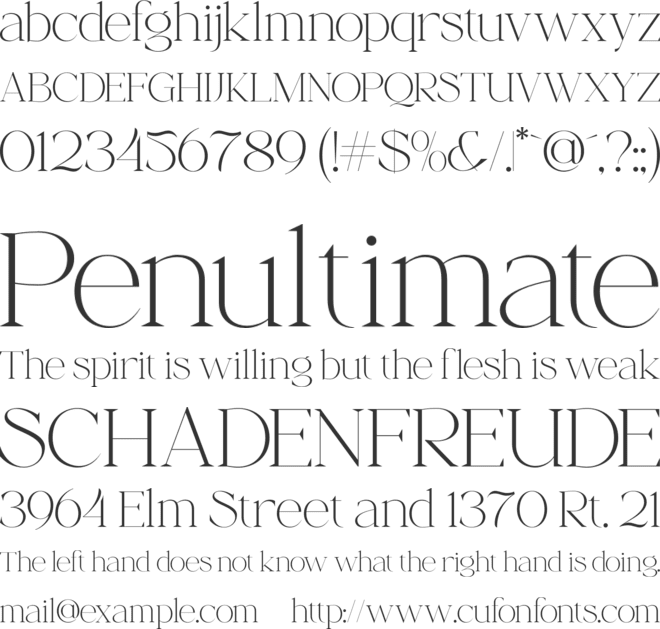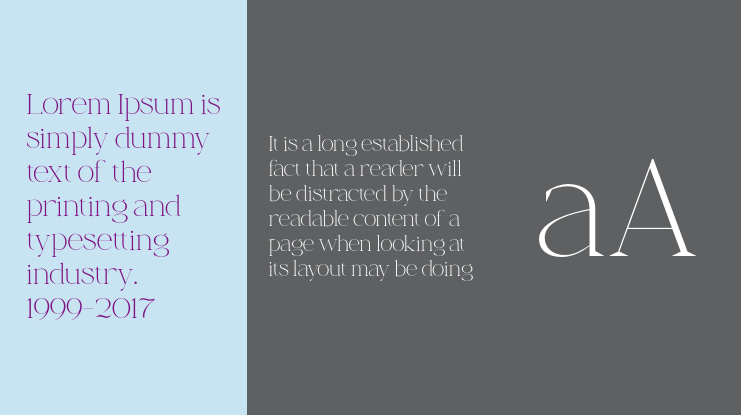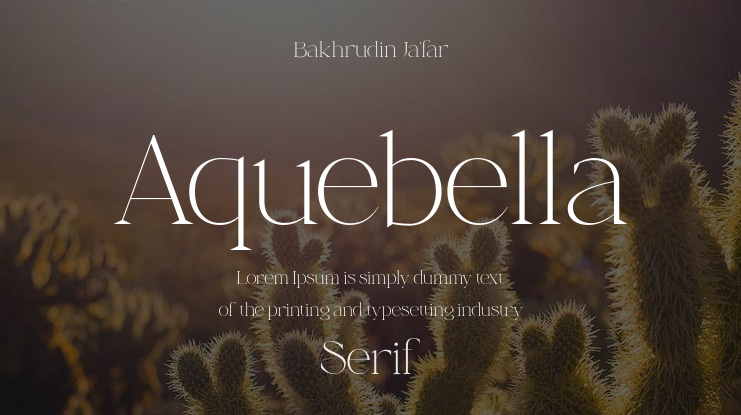
Aquebella Font Family
The Aquebella is a font was made because I had too much trouble finding a font that was unique but still within the serif standard, as a branding designer about finding a suitable font for a client who is looking for a luxurious and elegant design, and finally this font is finished which you can use as a designer or someone who need a serif font with a very unique style, elegant style and can be used as a logo, magazine header, poster, etc.